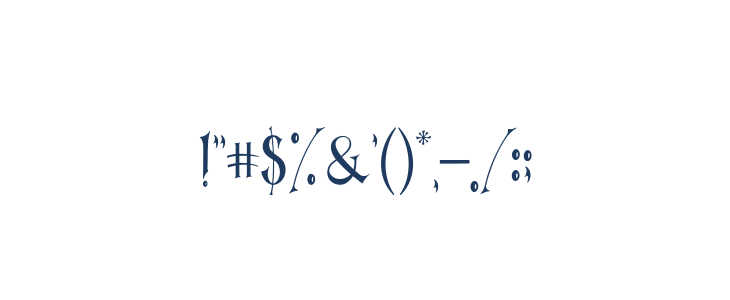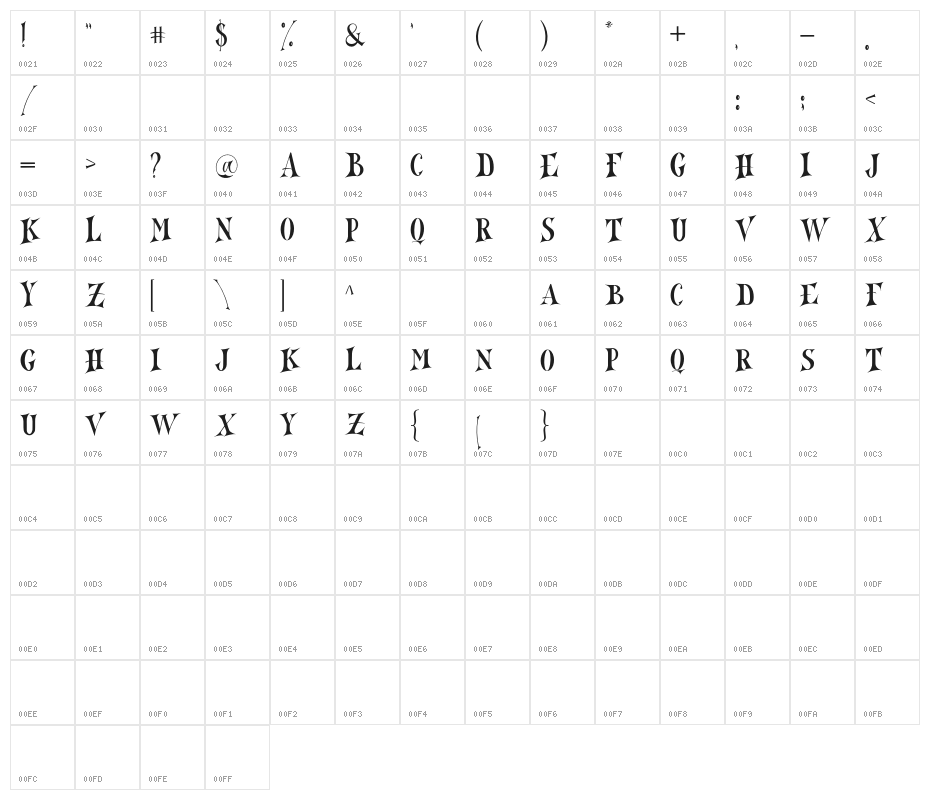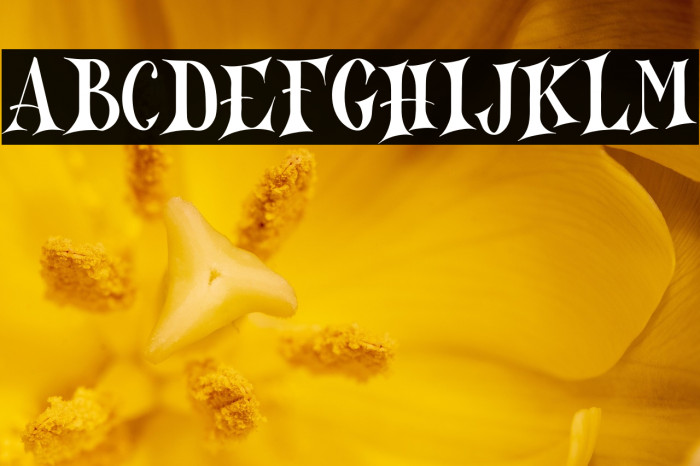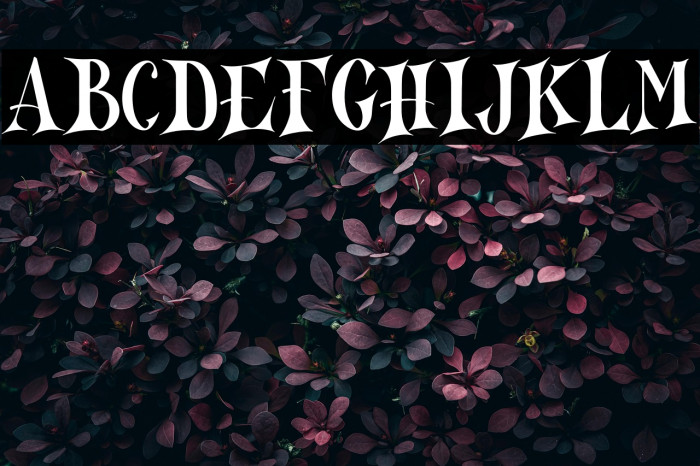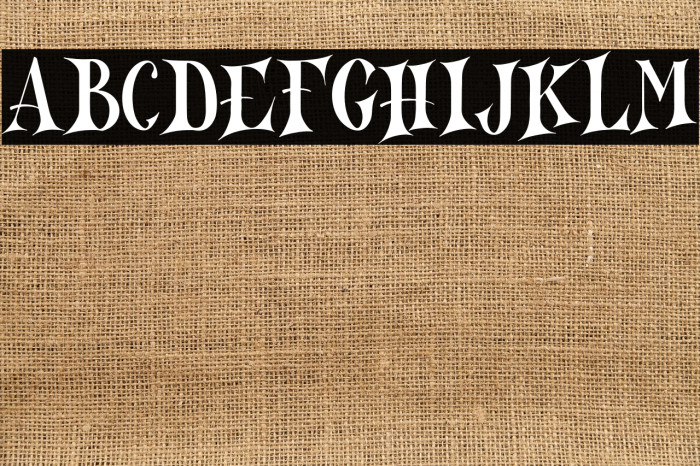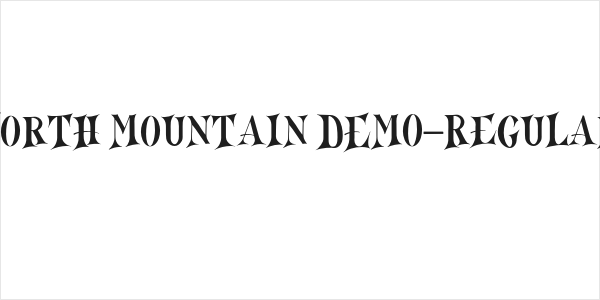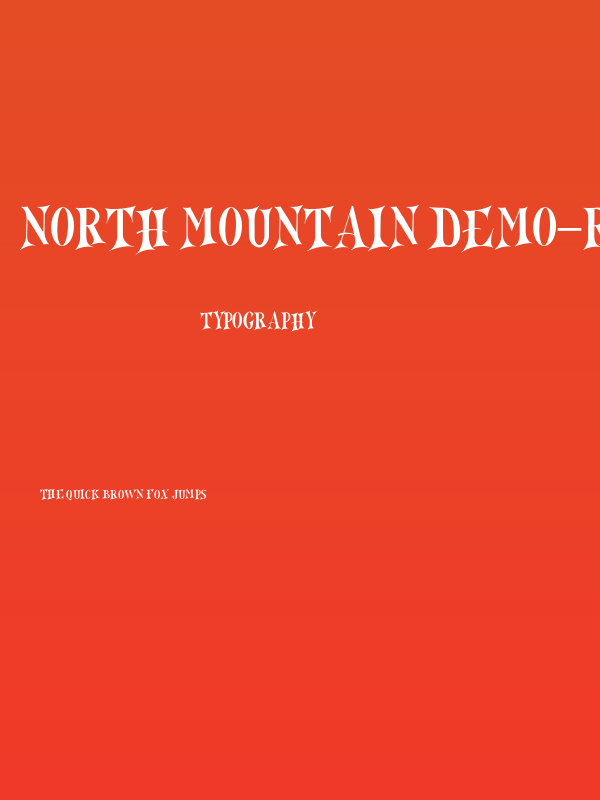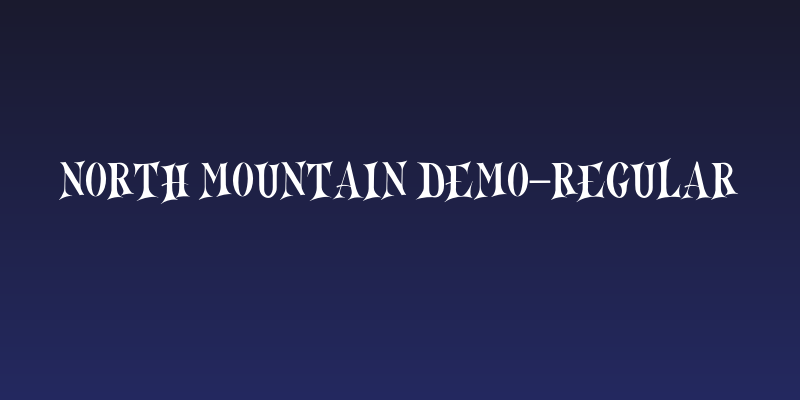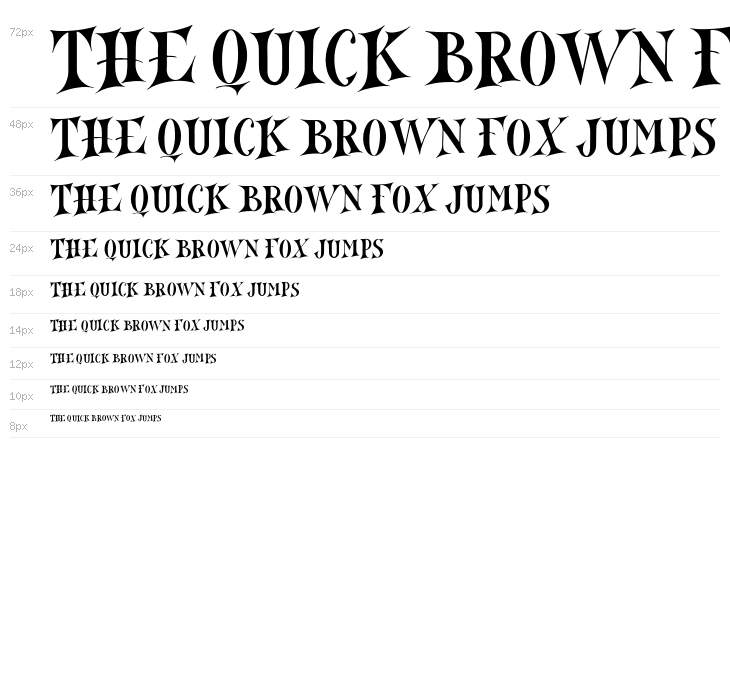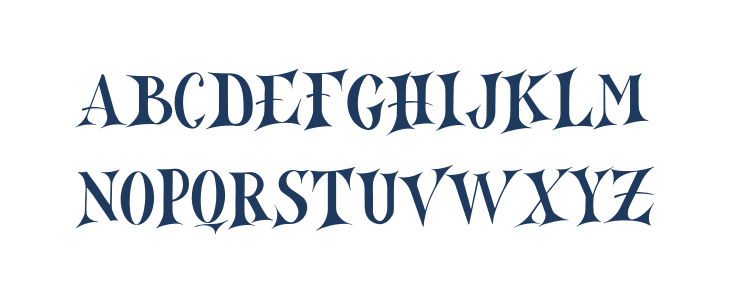
North Mountain DEMO-Regular Font
North Mountain DEMO-Regular Description
This font features a bold and dramatic style with sharp, angular serifs and a gothic influence. The characters exhibit a high contrast between thick and thin strokes, creating a striking and dynamic appearance. The uppercase letters are particularly ornate, with unique flourishes and pointed edges that give the font a distinct, medieval feel. The lowercase letters maintain the same stylistic elements, ensuring consistency throughout the typeface. The special characters are equally decorative, enhancing the overall aesthetic. This font is ideal for projects that require a bold and eye-catching design.
| Overall Style | Gothic, Decorative |
| Proposed Projects | Perfect for branding, posters, book covers, and any design needing a dramatic, medieval touch. |